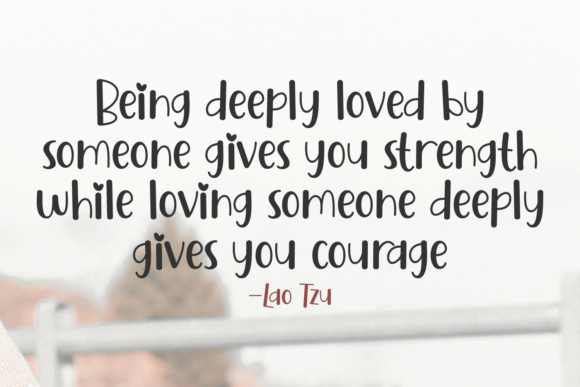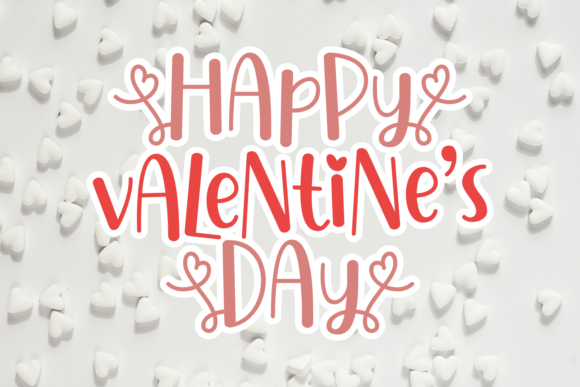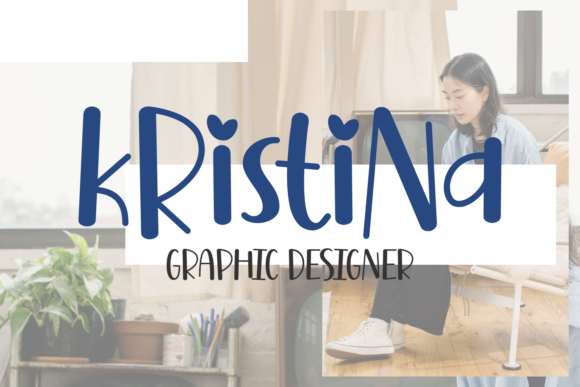
Jessica Honey Font
About Jessica Honey Font
Jessica Honey is a beautiful and quirky handwritten font perfect for any design you wish to create. Add it to your most creative ideas, and notice how it makes them come alive!